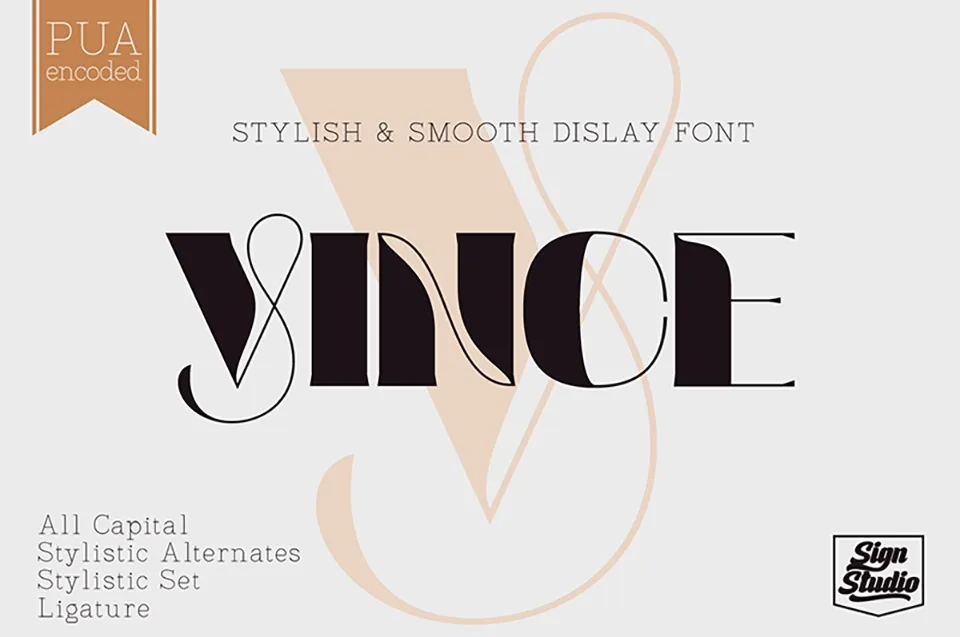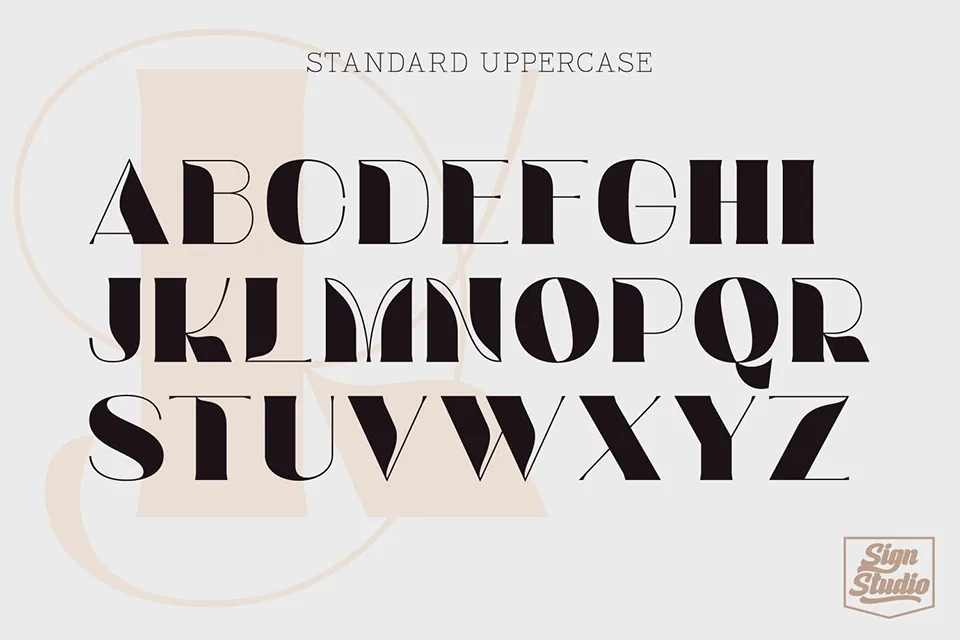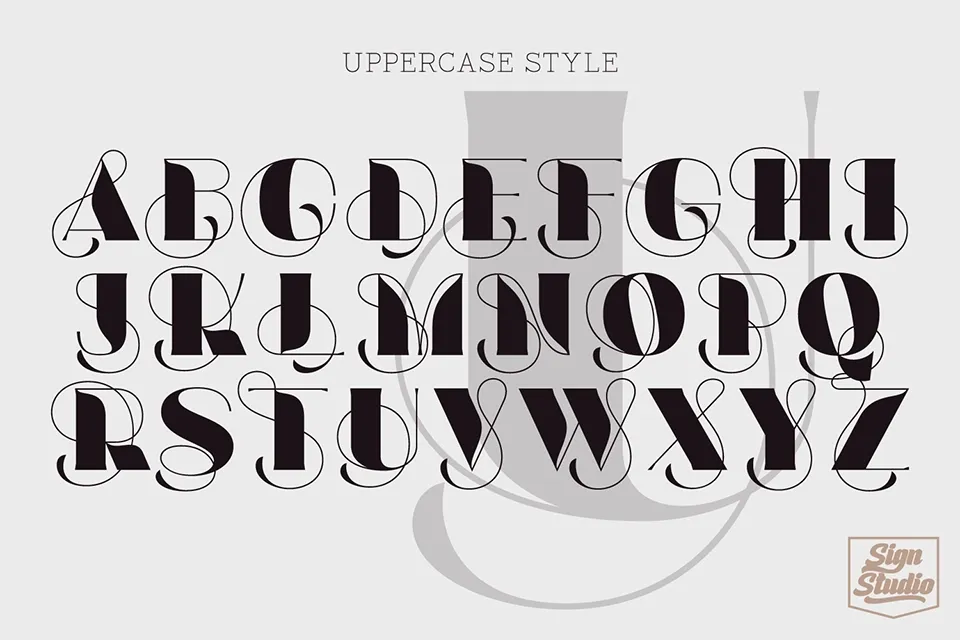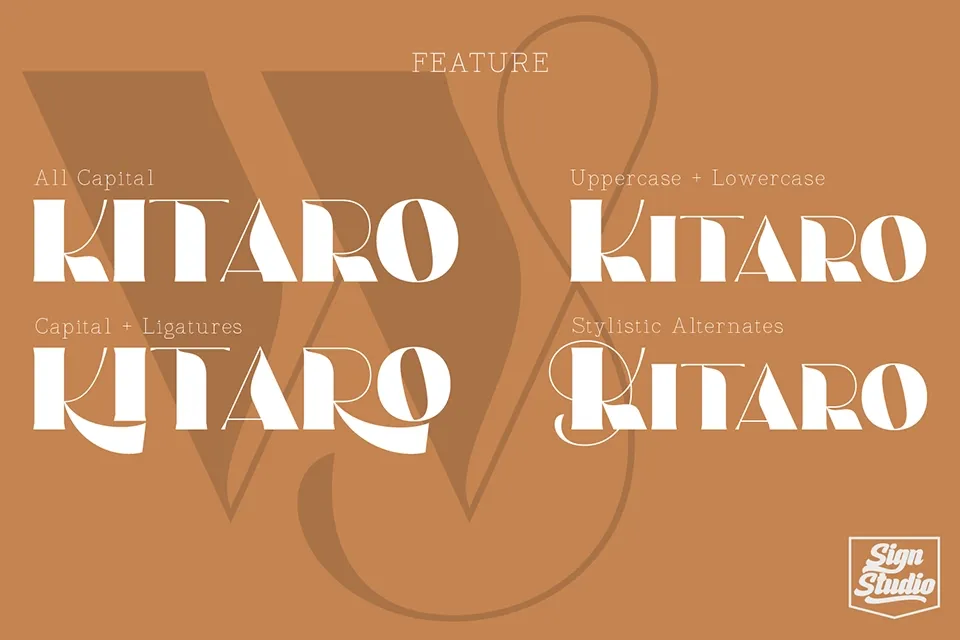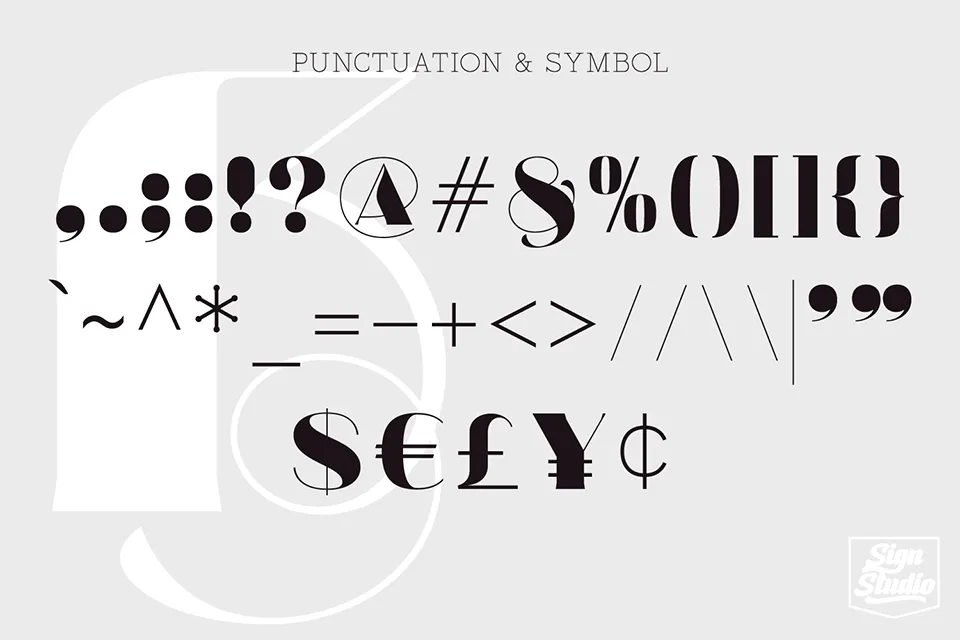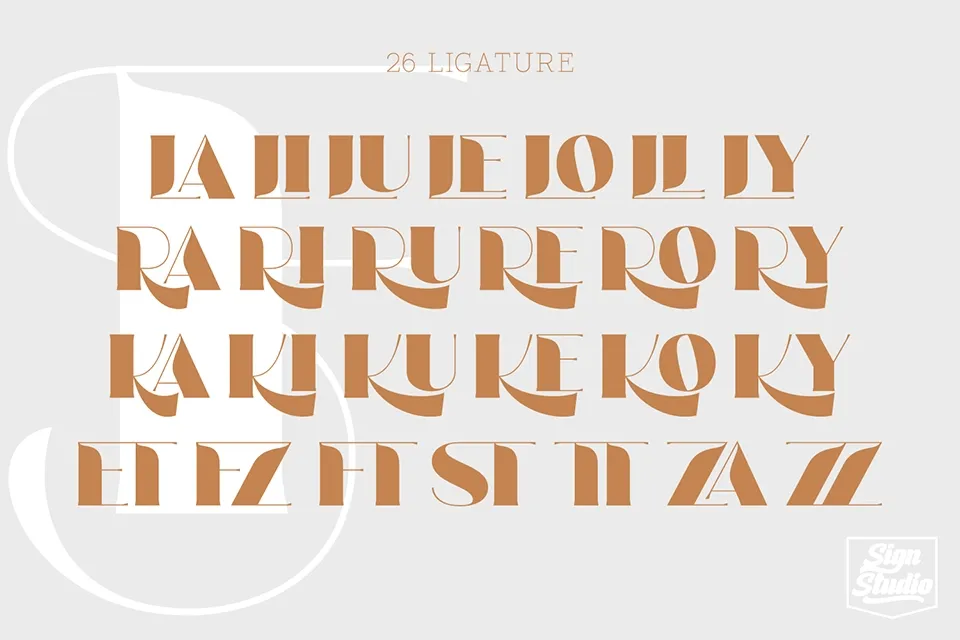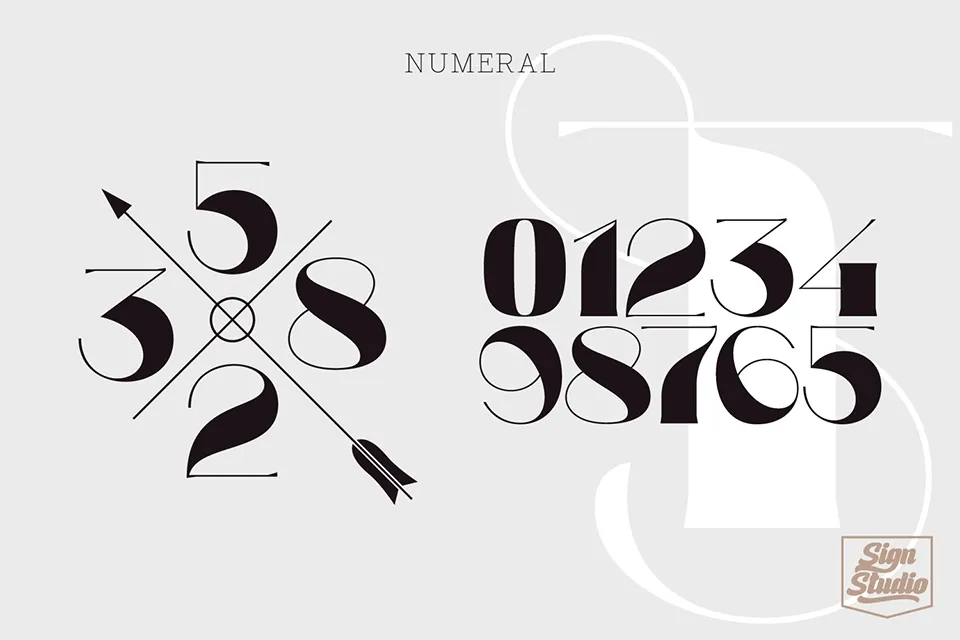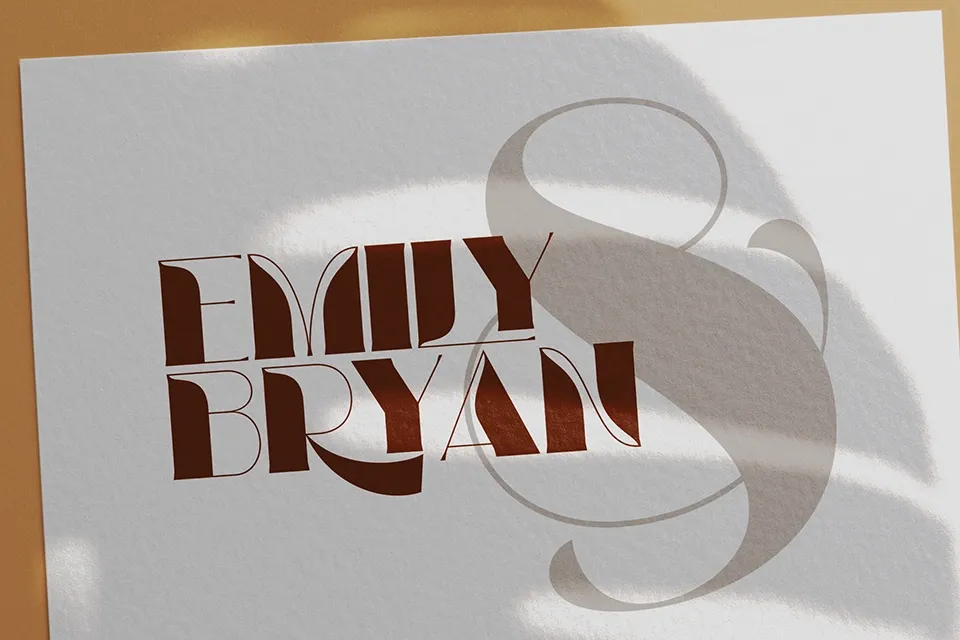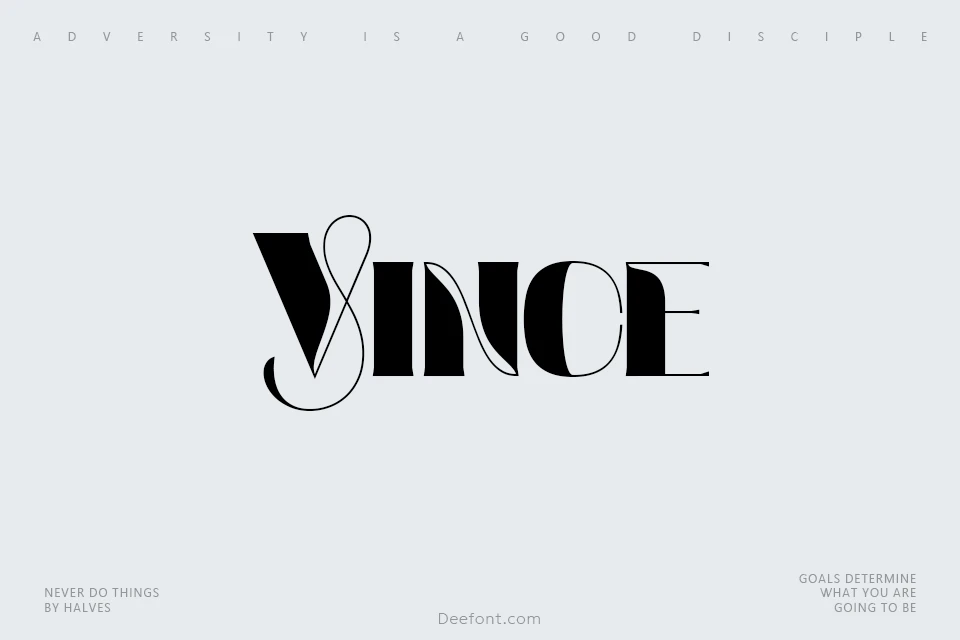
Vince Font
Vince Font is a stylish and sophisticated display typeface that combines elegance with a modern edge. Featuring all-capital letters, sleek ligatures, and distinctive stylistic alternates, it is designed to make a bold statement in any creative project. Its smooth curves and refined details bring a sense of luxury and professionalism, making it perfect for branding, logos, editorial layouts, and high-end packaging. The versatility of Vince Font allows it to adapt seamlessly to both minimalistic and elaborate designs. Whether you’re crafting bold headlines or elegant compositions, Vince Font delivers a unique blend of charm and contemporary style that captivates attention.